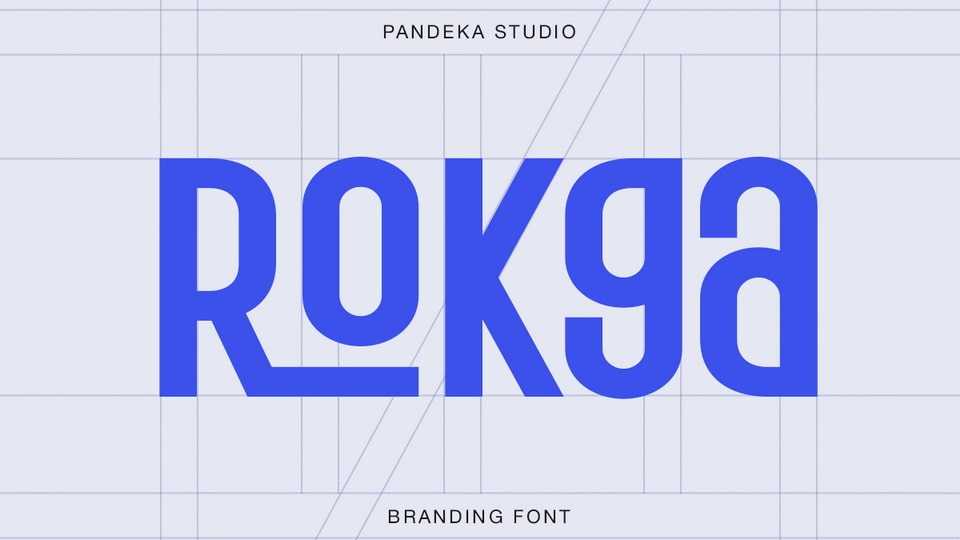
Download Rokga font, a futuristic display sans serif typeface with a bold and modern structure, designed for branding, editorial layouts, posters, and digital interfaces.